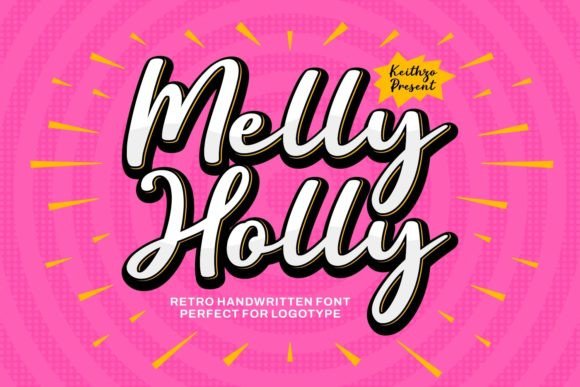
Introducing the mesmerizing Melly Holly Font, a true game-changer in the world of script fonts! Created by the talented Keithzo from 7NTypes, this cursive and modern handwritten font is here to elevate your creative projects to new heights.
Searching for the perfect font to make your poster titles stand out? Look no further! Melly Holly Font is the ultimate choice for creating captivating and eye-catching titles that will leave a lasting impression on your audience. Its unique script style adds a touch of elegance and sophistication, making it the best font for poster titles.
But Melly Holly Font doesn't stop there. Its versatility knows no bounds! Imagine the possibilities of using this font on your product packaging. Your customers won't be able to resist the allure of its classy and natural typography. Whether it's cosmetics, gourmet treats, or trendy fashion items, this font will add a touch of charm and luxury to your packaging design.
Photographers, rejoice! Melly Holly Font is your secret weapon for creating stunning watermarks on your photography. With its fluid strokes and seamless curves, this font effortlessly blends into your images, enhancing their beauty and making them truly unforgettable. Your clients will be in awe of your attention to detail and professionalism.
When it comes to branding, Melly Holly Font is your go-to choice. Its timeless elegance and modern appeal make it the perfect fit for logos and business cards. Make a bold statement and showcase your brand's personality with this captivating font. Stand out from the crowd and leave a lasting impression on potential clients and partners.
Melly Holly Font is more than just a font; it's a journey into the realm of creativity and self-expression. Embrace the power of this captivating script font and let it breathe life into your designs. Your audience will be captivated, your brand will shine, and your creativity will know no bounds. Don't miss out on this opportunity to elevate your projects to new heights.